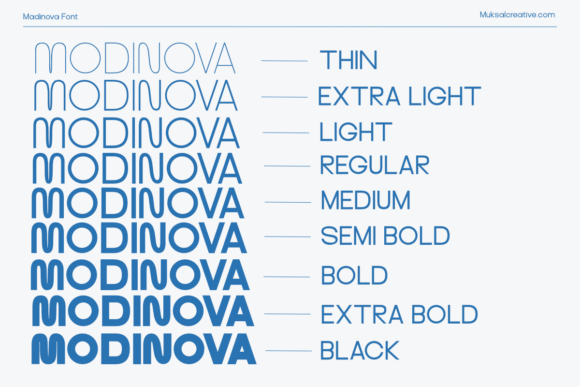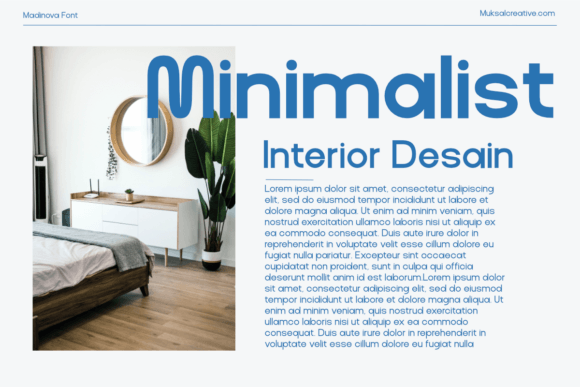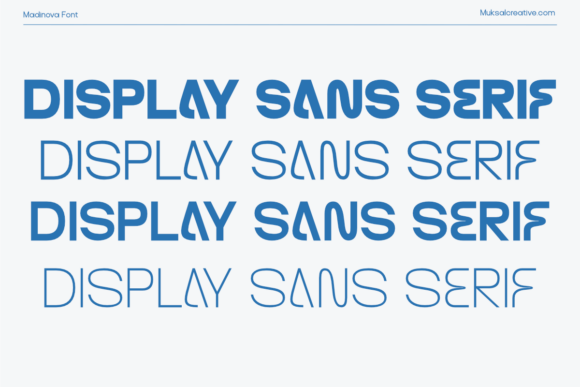
Introduction to Modinova Font
Have you ever been stuck on a creative project, staring at a blank screen, searching for the perfect font to bring your vision to life? The search for the ideal design resource can be overwhelming, especially when you’re working on a tight deadline. But what if I told you there’s a font that can elevate your design game and make your work shine? Enter the Modinova Font, a modern sans-serif masterpiece designed to deliver clarity and style in equal measure.
As a designer, you understand the importance of having a high-quality font that can adapt to any design need. Modinova Font is the answer to your prayers, offering 9 distinct styles that range from Thin to Black. With its clean geometric design and precise contours, this font is perfect for creating elegant typography, striking headlines, and even digital interfaces. And the best part? It’s incredibly versatile, making it an excellent choice for editorial design, branding, and more.
- Unique and stylish design makes it perfect for branding, logos, and other creative projects requiring a distinctive look.
Honest Review: Modinova Font
I recently had the chance to work with the Modinova Font, and I must say it’s been a game-changer for my creative projects. This versatile font has been a valuable addition to my design resource library.
What works well: ✨ The Modinova Font has a sleek, modern design that looks great on both digital and print materials. Its clean lines and minimalist aesthetic make it perfect for creating eye-catching graphics and visuals. The transparent background feature also allows for seamless integration with other design elements.
What doesn’t: ⚠️ While the Modinova Font is available for free download, it’s not without its limitations. The font family is relatively small, with only a few styles to choose from. This can be a drawback for designers who prefer more options when it comes to typography.
Overall, I’m impressed with the Modinova Font. Its high quality and modern design make it a valuable resource for any designer. While it may not be perfect, its strengths outweigh its limitations, and I would definitely recommend it for any creative project.
- Modern and sleek design
- Transparent background feature
- High-quality font
Tips for Getting the Most Out of Modinova Font
Use the Modinova Font with a transparent background to create a clean and modern look. Experiment with different font sizes and styles to add visual interest to your design.
Common Use Cases for Modinova Font
The Modinova Font is perfect for creating titles, headings, and body text for your creative project. It’s also great for designing social media graphics, posters, and flyers.